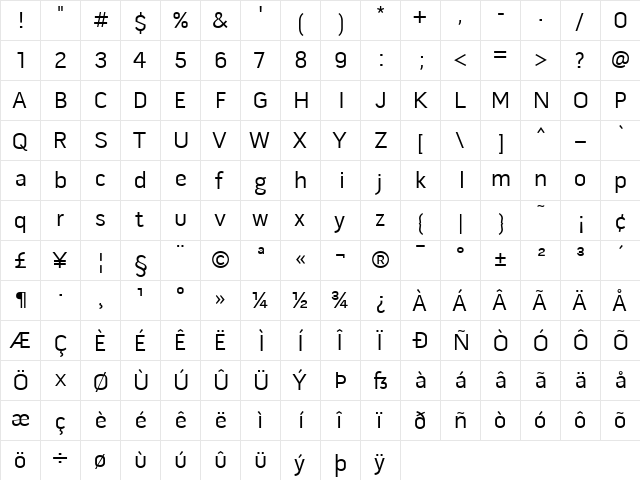
Pill Gothic 600mg Regular
| Designer | Christian Robertson |
Design Context for Pill Gothic 600mg Typeface
Pill Gothic 600mg takes a clean, functional approach — its unadorned letterforms prioritise legibility and work reliably across screen and print environments.
Font Pairing: Works well alongside a characterful serif or display font that can carry the expressive load while Pill Gothic 600mg handles the functional copy.
Pro Tip: Pair Pill Gothic 600mg with a display or serif font for headlines — its neutral character makes it an excellent supporting player in complex typographic systems.